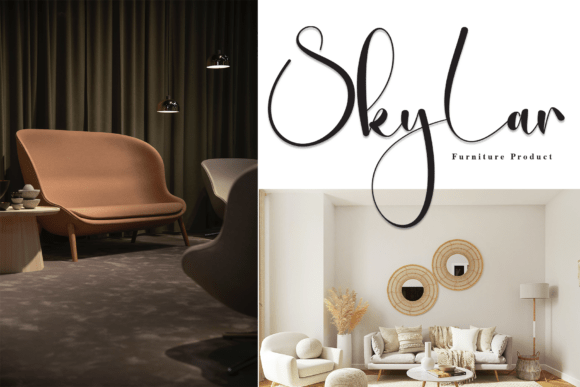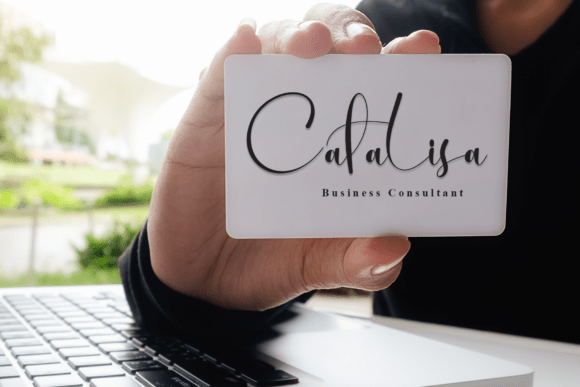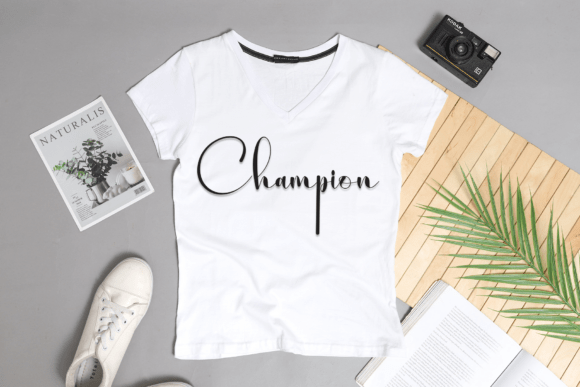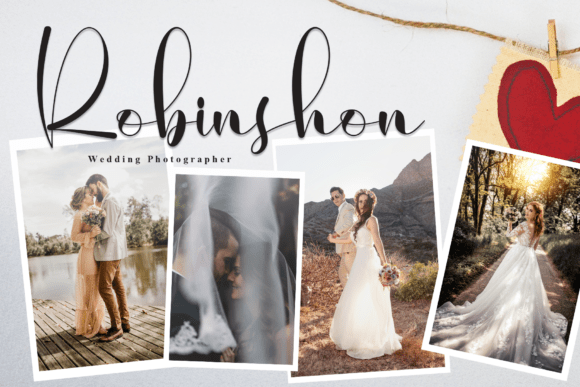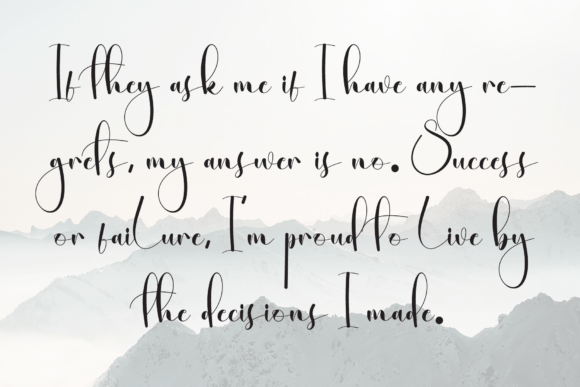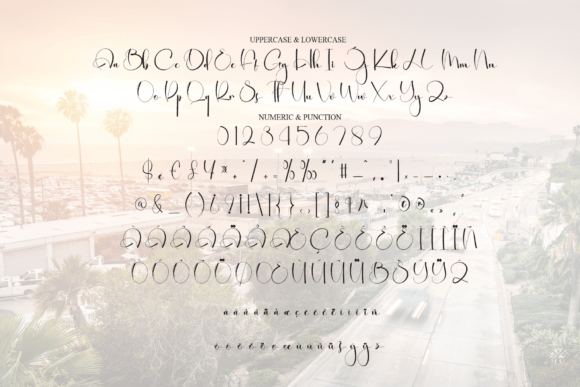
Introducing California Font: Elevate Your Designs with a Touch of Elegance
Are you a designer, crafter, or DIY enthusiast looking for a unique and creative way to add a personal touch to your projects? Look no further than California Font, a stunning and versatile font that will take your designs to the next level. With its elegant and modern style, this font is perfect for a wide range of applications, from wall displays and wedding invitations to social media posts, logos, advertisements, and more.
What Sets California Font Apart?
California Font is not just any ordinary font. Its special creative design will give you an extraordinary experience, allowing you to add a touch of sophistication and elegance to your projects. The latest style letters are carefully crafted to provide a unique and eye-catching look that will make your designs stand out from the crowd.
Endless Possibilities with California Font
Whether you’re a professional designer or a crafty DIY enthusiast, California Font offers endless possibilities for your creative projects. Here are just a few ideas to get you started:
- Wall displays and signage
- Social media posts and logos
- Advertisements and marketing materials
- Product packaging and design
- Labels and branding
- Photography and watermarks
- Stationery and letterheads
Why Choose California Font?
So why choose California Font over other fonts on the market? Here are just a few reasons:
- Unique and creative design
- High-quality and versatile font
Tips and Tricks for Using California Font
To get the most out of California Font, here are a few tips and tricks to keep in mind:
- Experiment with different font sizes and colors to add visual interest
- Use California Font in combination with other fonts for a unique look
- Take advantage of the font’s versatility by using it in a range of applications
If you’re looking for a high-quality, versatile font that will elevate your designs and add a touch of elegance, look no further than California Font. With its unique and creative design, endless possibilities for use, and comprehensive file package, this font is a must-have for designers, crafters, and DIY enthusiasts alike. So why wait? Download California Font today and experience the difference for yourself!